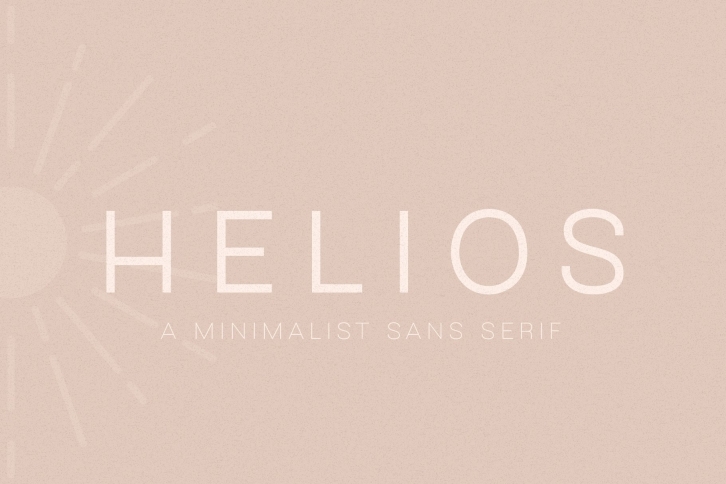
Helios A Minimalist Sans Serif is a great font that was designed by Megs Lang. Imagine the amount of combinations you can create using this font! The archive is 17.71 MB and it was released on April 13, 2020. Helios A Minimalist Sans Serif looks beautiful on wedding invitations, greeting cards, logos, posters, labels, t-shirt designs, logos, business cards and is perfect for use in ink or watercolor works, fashion, magazines, packaging and food menus, children's books and more!